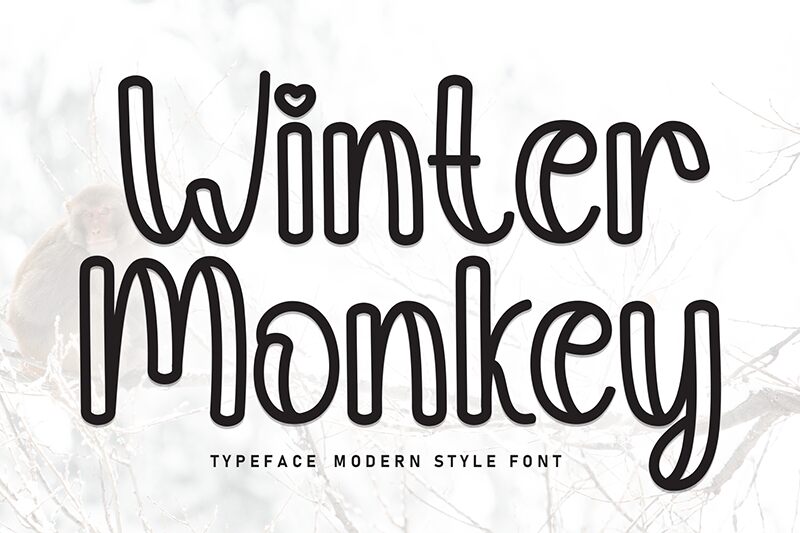
Winter Monkey font by Andi Moz is a free playful and casual script typeface with connected letters and a one-of-a-kind style. It features handwritten capital and small letters, numerals, and more written in a light, modern, and informal style. It’s a youthful decorative font that comes with an overall friendly and whimsical aesthetic.
The font with its unique irregular style of writing and outline works great in illustrations, children’s books, creative magazines, and editorials. It’s wondrous for package design, web design, social media posts, and even tattoo design. Other uses are posters, invitation cards, postcards, bedding design, or wallpaper pattern design.
This is a sweet and friendly handwritten display font. Cute and fun, this font is ideal for writing wedding invitations, cards, or any other design that might need a playful touch!